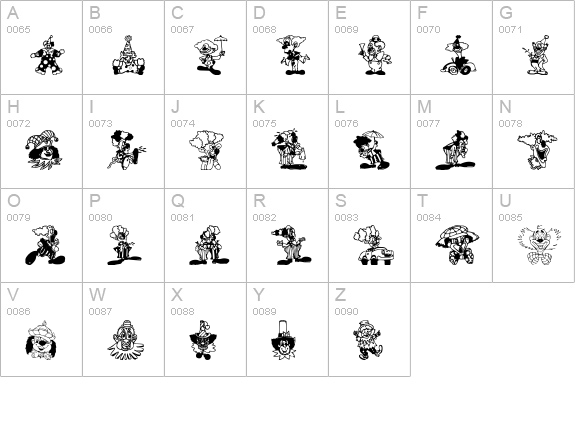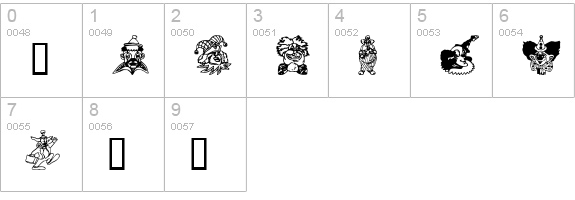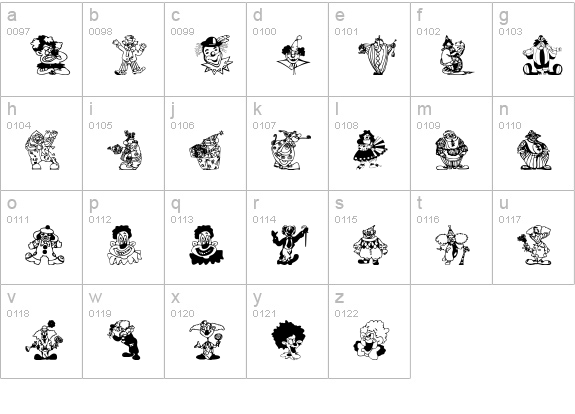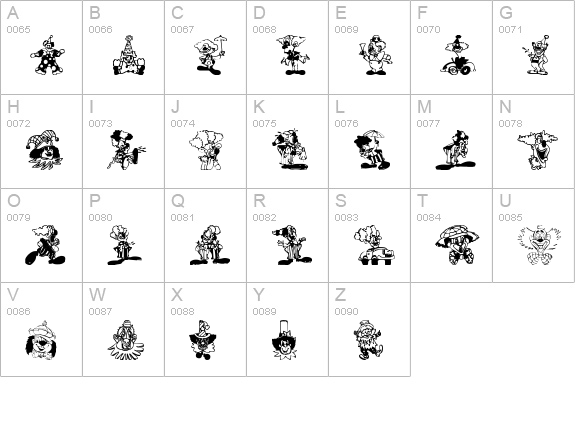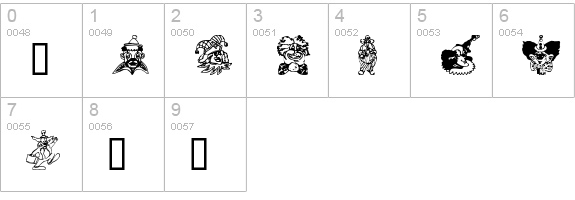
Clowners Font Details
Clowners font is a whimsical and playful typeface that is sure to bring a smile to your projects. With its quirky and unique design, this font is perfect for adding a touch of fun to your designs. Whether you're creating invitations, posters, or social media graphics, Clowners font will add a playful and lighthearted feel to your work. The best part? Clowners font is completely free to download! You can get your hands on this charming font at FontsMarket.com and start using it in your projects right away. Embrace the creativity and joy that Clowners font brings, and let your designs stand out with its cheerful and engaging style.